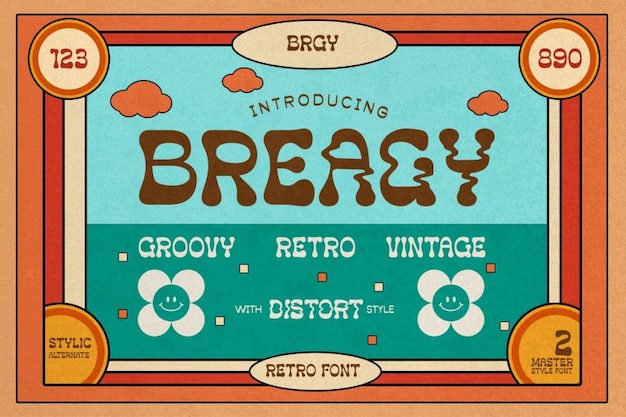
Breagy Font
Drizy Studio
"Breagy" font embodies a groovy vintage vibe with its blurred, unfocused aesthetic. Each letter exudes retro charm, evoking a sense of nostalgia and whimsy. Perfect for projects seeking a throwback to the past, "Breagy" adds a touch of retro flair to posters, branding, and more. Its unfocused, groovy style invites viewers to embrace a journey through time, where the lines between past and present blur in a colorful dance of creativity.